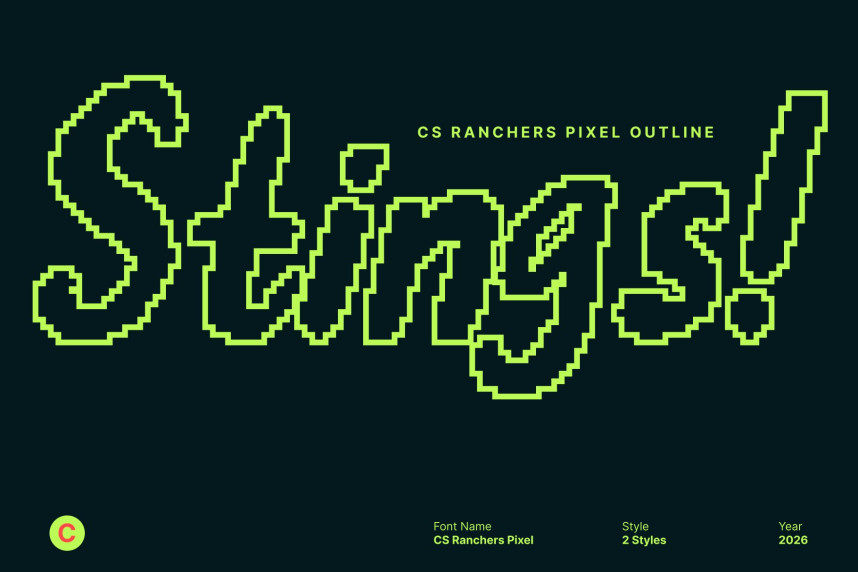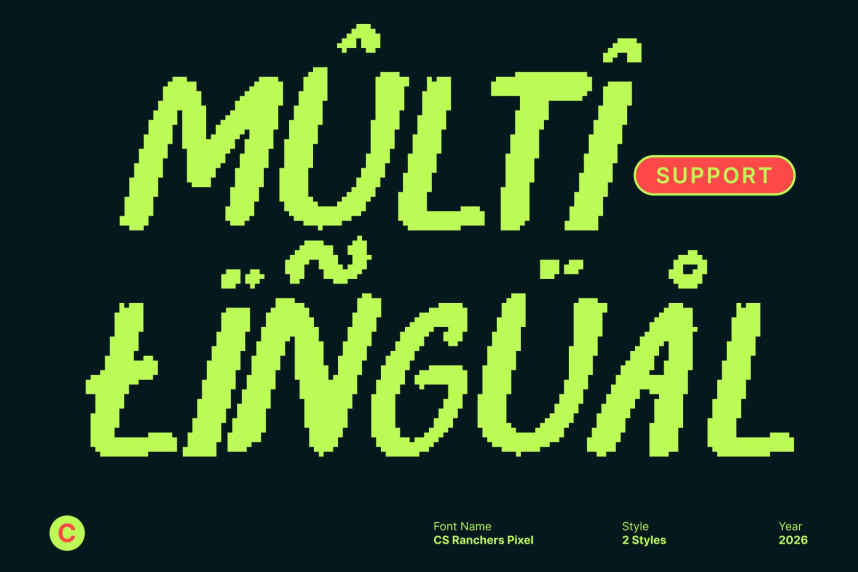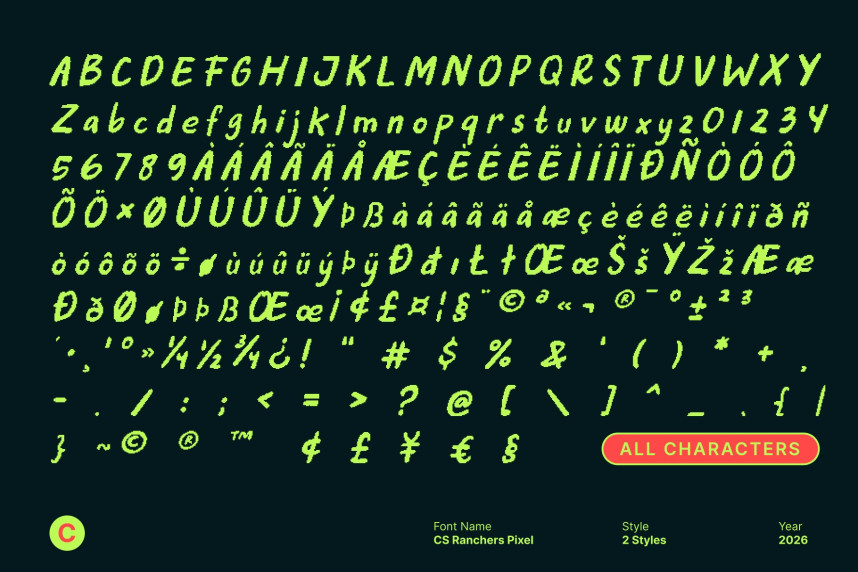
CS Ranchers Pixel Font
CS Ranchers Pixel Font – Expressive Brush Display with Digital Hand-Brushed Texture Hand-Brushed Expression Meets Pixel Attitude. This is an expressive brush display font that captures the raw beauty of natural hand-brushed lettering, reimagined through a distinctive pixel style. The energetic brush strokes retain their organic movement while gaining a bold digital edge, creating a font that feels handcrafted yet perfectly suited for screen-based design and retro-tech aesthetics.